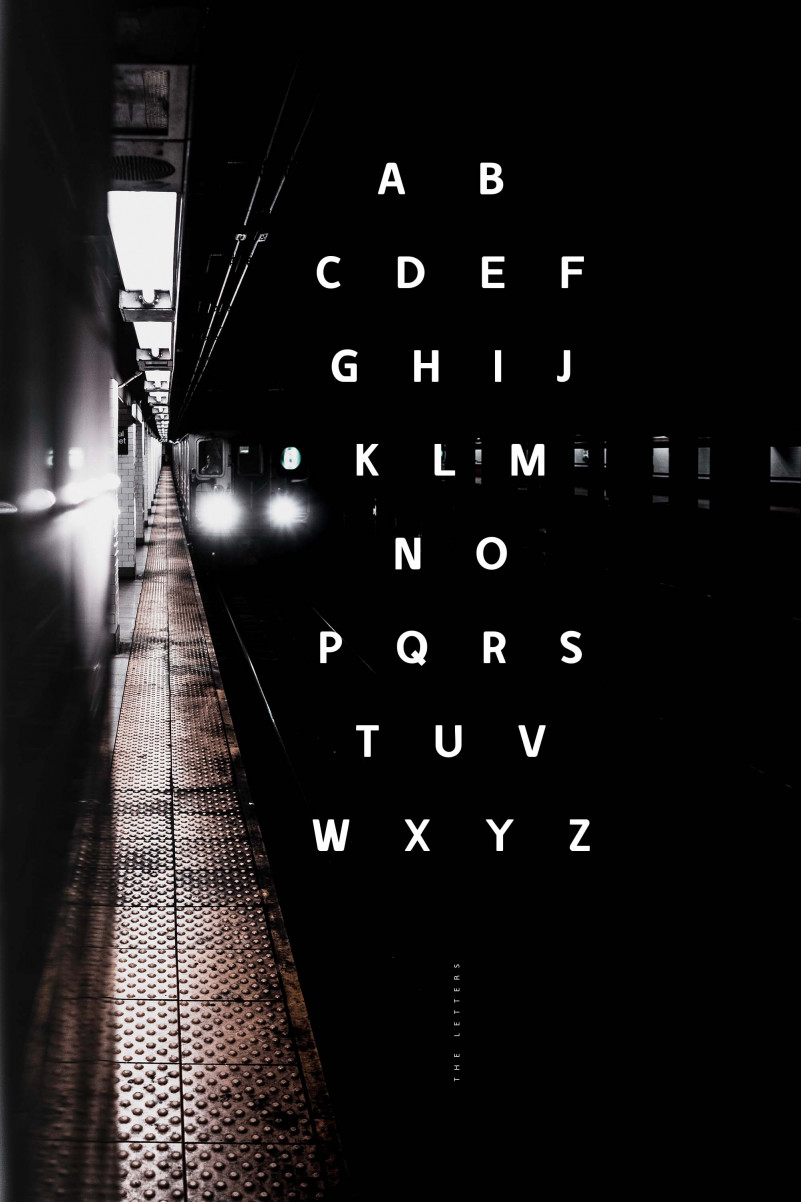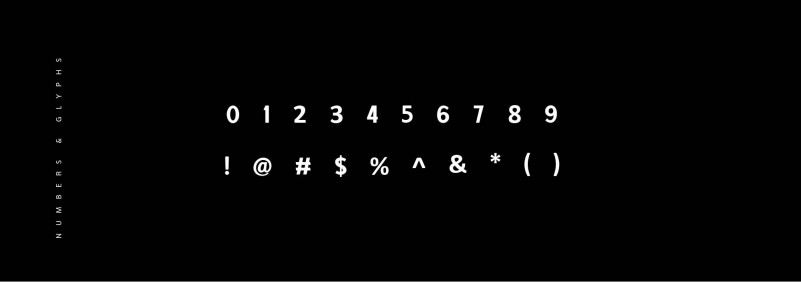
Dunnu Sans Free Font
Dunnu is an elegant sans serif font with a super exquisite appearance. Its clean shapes and remarkable details makes it perfect for logos, branding, magazines, headlines, websites, packaging, wedding cards and much more!
| Designer Name: | unblast |